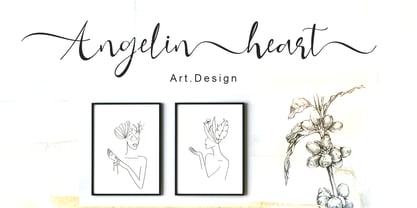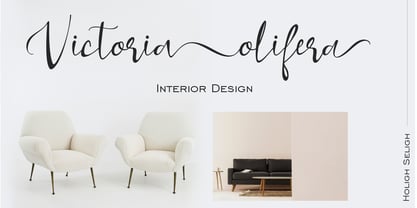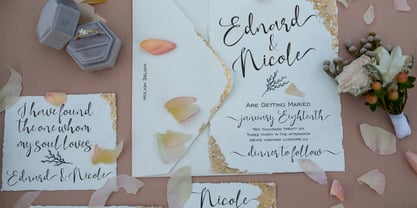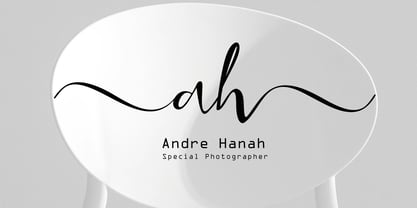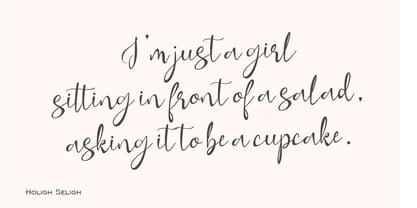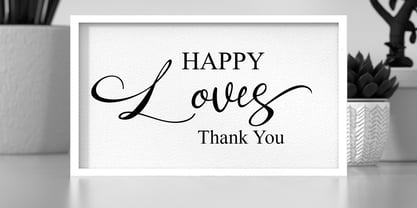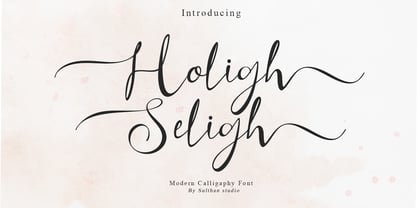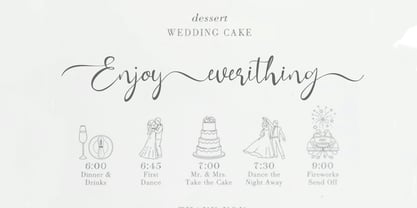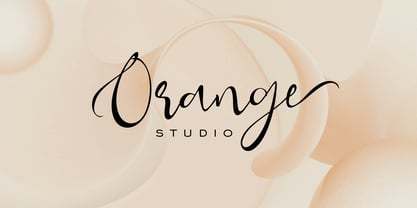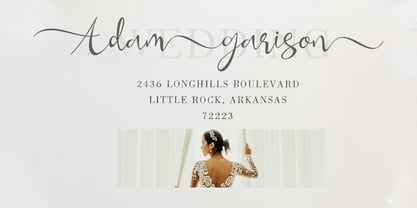
Holigh seligh
by Sulthan Studio
The Holigh seligh Font Family was designed by Nasrullah and published by Sulthan Studio. Holigh seligh contains 1 styles. More about this family
Elevate your designs with this unique calligraphy font, masterfully crafted to combine elegance with expressive charm. Featuring graceful swashes and flowing letterforms, this font brings a romantic and luxurious touch to invitations, branding, logos, social media, and more. Each character is carefully designed to maintain perfect balance and rhythm, while the decorative swashes add flair and personality without overwhelming the composition. Ideal for those who want to make a bold, artistic statement with a refined, hand-lettered style.
Designers: Nasrullah
Foundry: Sulthan Studio